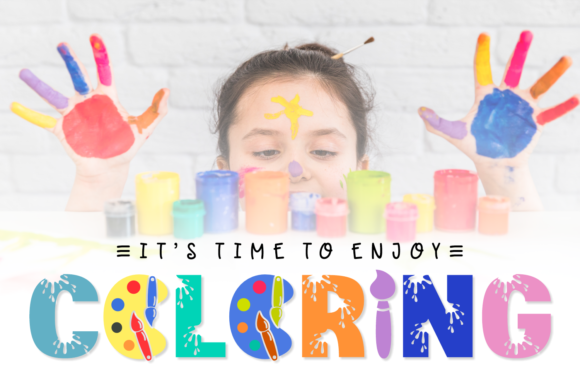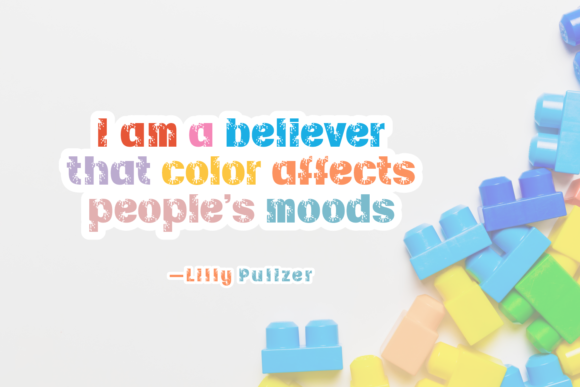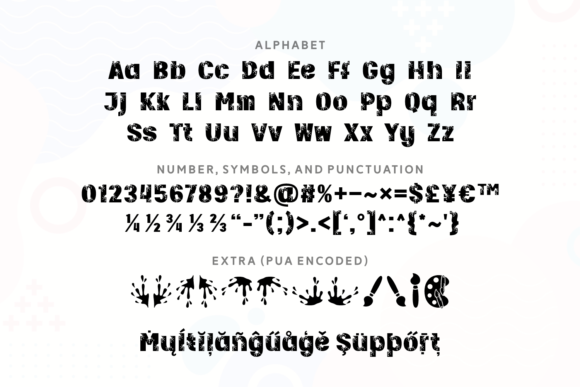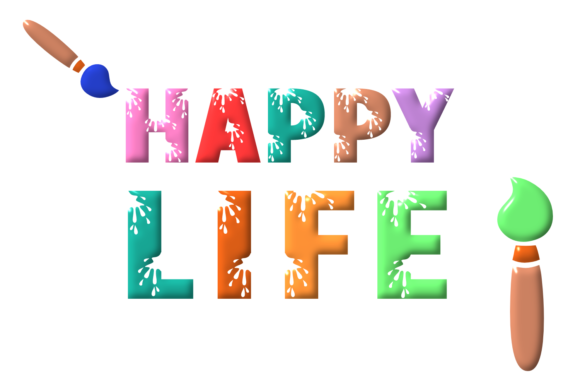
Introducing Brush Splash Font: A Creative and Playful Display Font
Are you looking for a font that adds a touch of creativity and playfulness to your designs? Look no further than Brush Splash Font! This modern and childish typeface features a paint-like design with a water splash character set, making it perfect for a variety of projects.
What is Brush Splash Font?
Brush Splash Font is a display font that boasts a unique and eye-catching design. Its paint-like appearance and water splash character set give it a fresh and fun feel, making it ideal for designs that require a bit of whimsy. Whether you’re working on a project for kids or adults, Brush Splash Font is sure to make a splash.
Perfect for Art-Related Projects
With its paint-like design, Brush Splash Font is a natural fit for art-related projects. Imagine using it for:
- Art classes news and announcements
- Drawings and painting projects
- Art prints and posters
- Kids’ projects and activities
- Wall art and quotes
Magazines and Posters
Brush Splash Font is not just limited to art-related projects. Its playful and creative design makes it perfect for:
- Magazines and editorials
- Brochures and catalogs
Why Choose Brush Splash Font?
So why choose Brush Splash Font for your next project? Here are just a few reasons:
- Unique Design: Brush Splash Font features a one-of-a-kind design that’s sure to grab attention.
- Playful and Creative: This font is perfect for projects that require a bit of whimsy and playfulness.
- Easy to Read: Despite its creative design, Brush Splash Font is easy to read and understand.
- Versatile: This font can be used for a wide range of projects, from art classes to magazines and posters.
Tips for Using Brush Splash Font
Here are a few tips for using Brush Splash Font in your designs:
- Use it as a Header Font: Brush Splash Font is perfect for headers and titles, where its creative design can really shine.
- Pair it with a Simple Font: For body text, pair Brush Splash Font with a simple font to create a nice contrast.
- Experiment with Colors: Brush Splash Font looks great in a variety of colors, so don’t be afraid to experiment and find the perfect hue for your project.
In conclusion, Brush Splash Font is a creative and playful display font that’s perfect for a wide range of projects. Its unique design, playful feel, and versatility make it a great choice for designers and crafters looking to add a bit of whimsy to their work. Whether you’re working on an art-related project or a magazine or poster, Brush Splash Font is sure to make a splash.